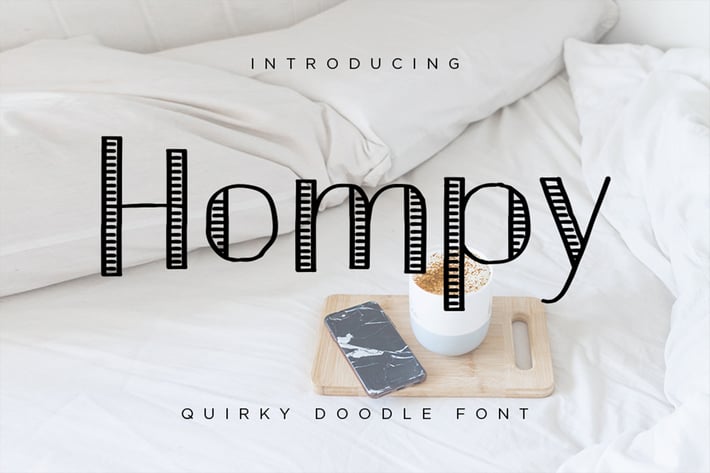
Hompy - Quirky Doodle Font
Unleash your inner child by having fun using our Hompy font. A quirky and doodly font with the “almost careless” vibe to bring the honest feel to your visual project. Perfectly fit for a wedding, handcrafted products, vintage branding, cosmetic branding, etc.